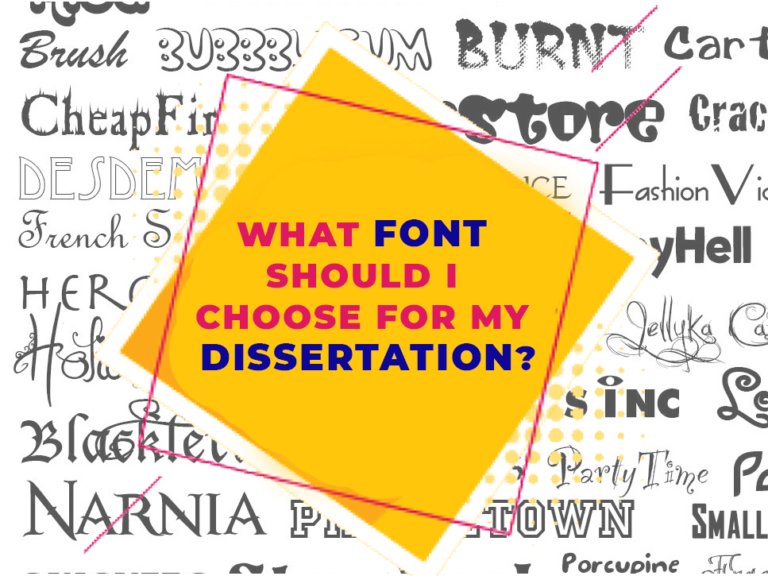
Best Font For Dissertation . Times new roman is the standard choice for academic documents, and the thesis preparation guidelines of some universities stipulate its use. It will define how others view and read your work, so selecting one that. With the release of office 2007, the default became a sans serif typeface called calibri. What is the best font for a research paper? What are the most popular. Should i use calibri or arial? Look at these three (which are all great fonts to use in your phd thesis, btw): Choosing the right font for your dissertation is essential. Serif fonts rule the academic roost for legibility. What’s the best font for readability in academic papers? What is considered the most professional font? For many years, it was the default body text for microsoft word. Most universities recommend a serif font like times new roman, size 12, for. When deciding which font for dissertation works best, it’s essential to think about how legible each style appears on. Palatino linotype, cambria, and times.
What is considered the most professional font? What are the most popular. What’s the best font for readability in academic papers? Use a clear and readable font like times new roman, arial, or calibri for a uk dissertation. Serif fonts rule the academic roost for legibility. What is the best font for a research paper? Palatino linotype, cambria, and times. When deciding which font for dissertation works best, it’s essential to think about how legible each style appears on. It will define how others view and read your work, so selecting one that. Times new roman is the standard choice for academic documents, and the thesis preparation guidelines of some universities stipulate its use.
Top 5 Best Font For Dissertation in UK To Make it Look Organized
Best Font For Dissertation Palatino linotype, cambria, and times. When deciding which font for dissertation works best, it’s essential to think about how legible each style appears on. Times new roman is the standard choice for academic documents, and the thesis preparation guidelines of some universities stipulate its use. It will define how others view and read your work, so selecting one that. For many years, it was the default body text for microsoft word. Should i use calibri or arial? Use a clear and readable font like times new roman, arial, or calibri for a uk dissertation. What is the best font for a research paper? What are the most popular. Choosing the right font for your dissertation is essential. Look at these three (which are all great fonts to use in your phd thesis, btw): What’s the best font for readability in academic papers? What is considered the most professional font? With the release of office 2007, the default became a sans serif typeface called calibri. Most universities recommend a serif font like times new roman, size 12, for. Serif fonts rule the academic roost for legibility.
Dissertation Font Telegraph Best Font For Dissertation What is considered the most professional font? What are the most popular. With the release of office 2007, the default became a sans serif typeface called calibri. It will define how others view and read your work, so selecting one that. Times new roman is the standard choice for academic documents, and the thesis preparation guidelines of some universities stipulate. Best Font For Dissertation.
Dissertation Font Telegraph Best Font For Dissertation Look at these three (which are all great fonts to use in your phd thesis, btw): When deciding which font for dissertation works best, it’s essential to think about how legible each style appears on. Use a clear and readable font like times new roman, arial, or calibri for a uk dissertation. What are the most popular. Choosing the right. Best Font For Dissertation.
Dissertation Font Telegraph Best Font For Dissertation Serif fonts rule the academic roost for legibility. Should i use calibri or arial? Times new roman is the standard choice for academic documents, and the thesis preparation guidelines of some universities stipulate its use. Choosing the right font for your dissertation is essential. For many years, it was the default body text for microsoft word. With the release of. Best Font For Dissertation.
Perfect Dissertation Font to Impress Your Professor Best Font For Dissertation Serif fonts rule the academic roost for legibility. Palatino linotype, cambria, and times. Choosing the right font for your dissertation is essential. Use a clear and readable font like times new roman, arial, or calibri for a uk dissertation. For many years, it was the default body text for microsoft word. Look at these three (which are all great fonts. Best Font For Dissertation.
The Thesis Whisperer Best Font For Dissertation Most universities recommend a serif font like times new roman, size 12, for. It will define how others view and read your work, so selecting one that. Use a clear and readable font like times new roman, arial, or calibri for a uk dissertation. What are the most popular. With the release of office 2007, the default became a sans. Best Font For Dissertation.
How to Write a Dissertation Abstract in 2024 TrueEditors Best Font For Dissertation What are the most popular. Times new roman is the standard choice for academic documents, and the thesis preparation guidelines of some universities stipulate its use. Look at these three (which are all great fonts to use in your phd thesis, btw): Use a clear and readable font like times new roman, arial, or calibri for a uk dissertation. What. Best Font For Dissertation.
Thesis Font Size Thesis Title Ideas for College Best Font For Dissertation Most universities recommend a serif font like times new roman, size 12, for. Should i use calibri or arial? Serif fonts rule the academic roost for legibility. Use a clear and readable font like times new roman, arial, or calibri for a uk dissertation. With the release of office 2007, the default became a sans serif typeface called calibri. When. Best Font For Dissertation.
Best Font For Letters Enhance Your Designs Best Font For Dissertation Serif fonts rule the academic roost for legibility. What’s the best font for readability in academic papers? Palatino linotype, cambria, and times. With the release of office 2007, the default became a sans serif typeface called calibri. Use a clear and readable font like times new roman, arial, or calibri for a uk dissertation. What is considered the most professional. Best Font For Dissertation.
Pay for Exclusive Essay best fonts for dissertation 2017/10/02 Best Font For Dissertation Should i use calibri or arial? What is the best font for a research paper? Palatino linotype, cambria, and times. Most universities recommend a serif font like times new roman, size 12, for. Look at these three (which are all great fonts to use in your phd thesis, btw): What are the most popular. Serif fonts rule the academic roost. Best Font For Dissertation.